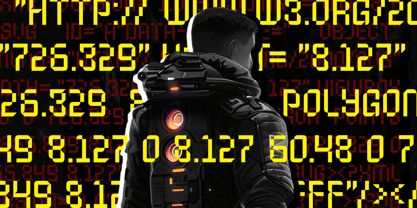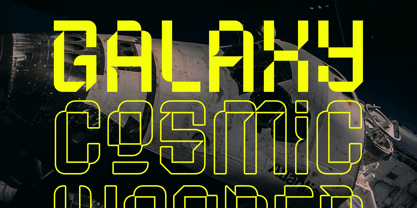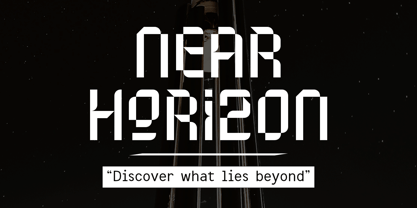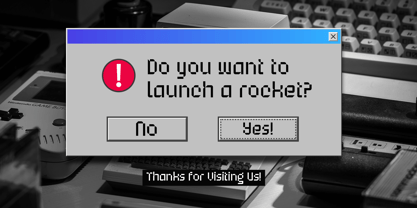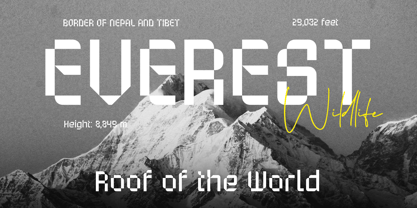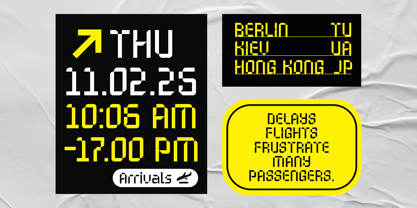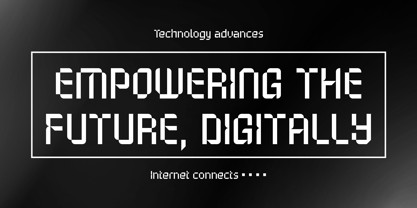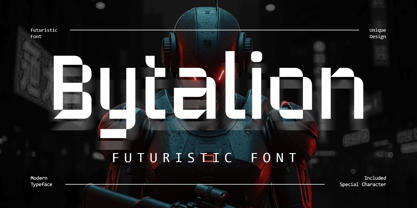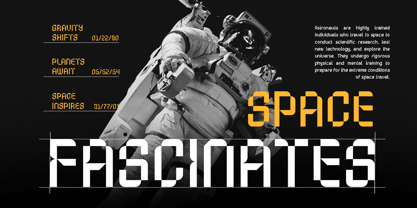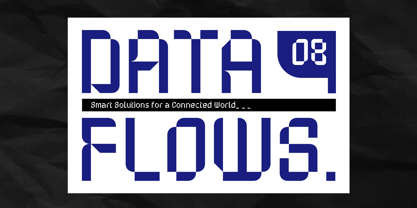
Bytalion
by Arterfak Project
The Bytalion Font Family was designed by Ahmad Ramzi Fahruddin and published by Arterfak Project. Bytalion contains 2 styles and family package options.
Bytalion is futuristic font with unique geometrical design. Combined the rectangular and curvy shapes this font brings you to a sci-fi journey like in the movie. Bytalion represents modernism, technology, and minimalist style.
Equipped with stylistic alterates, Bytalion ideal for poster, movie title, books, motion graphic, branding, logos and other projects that require futuristic impression.